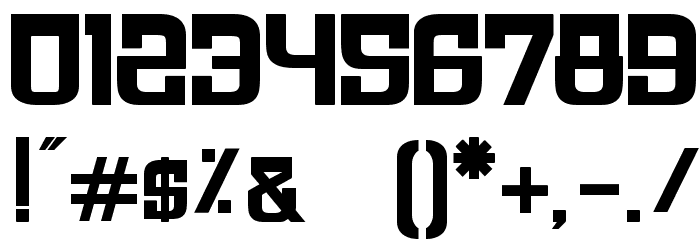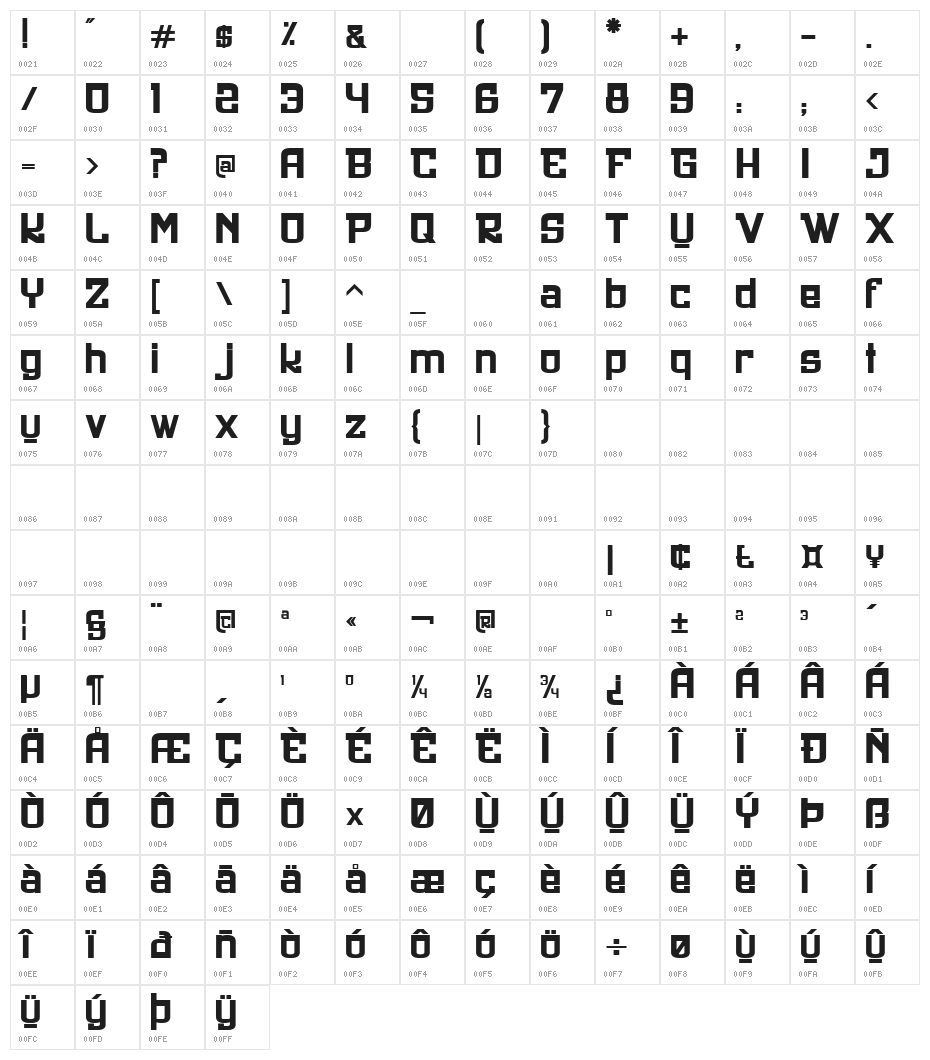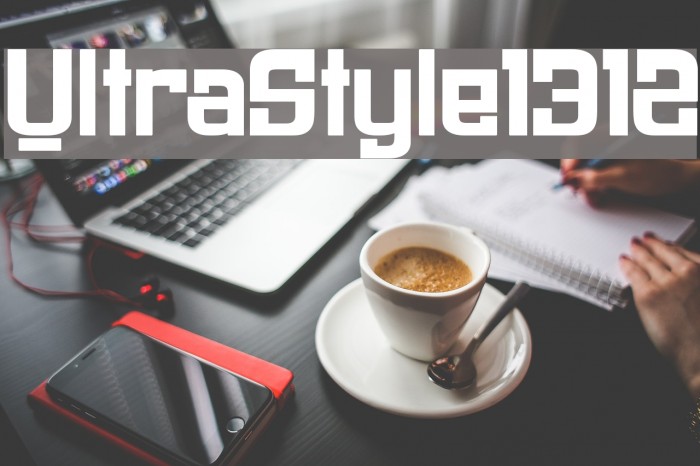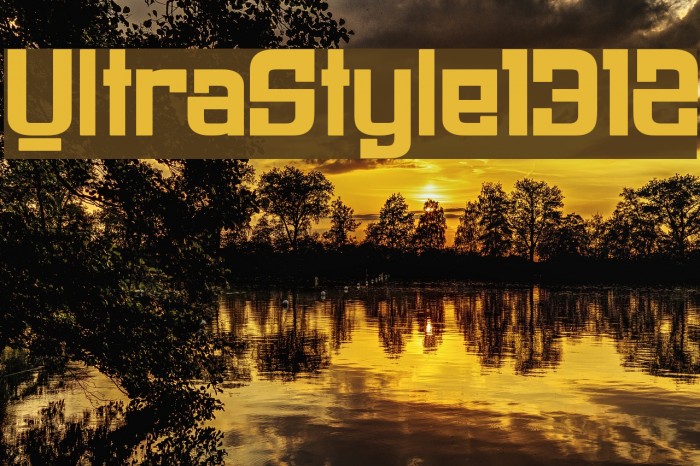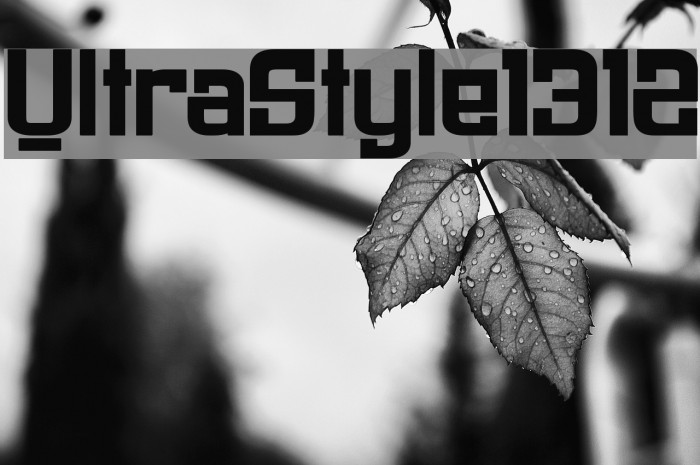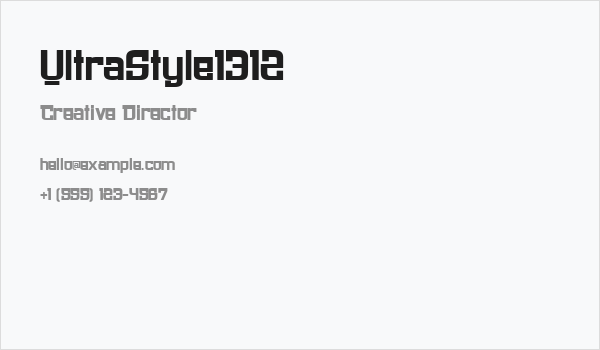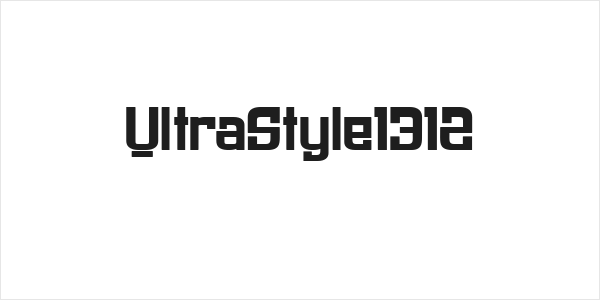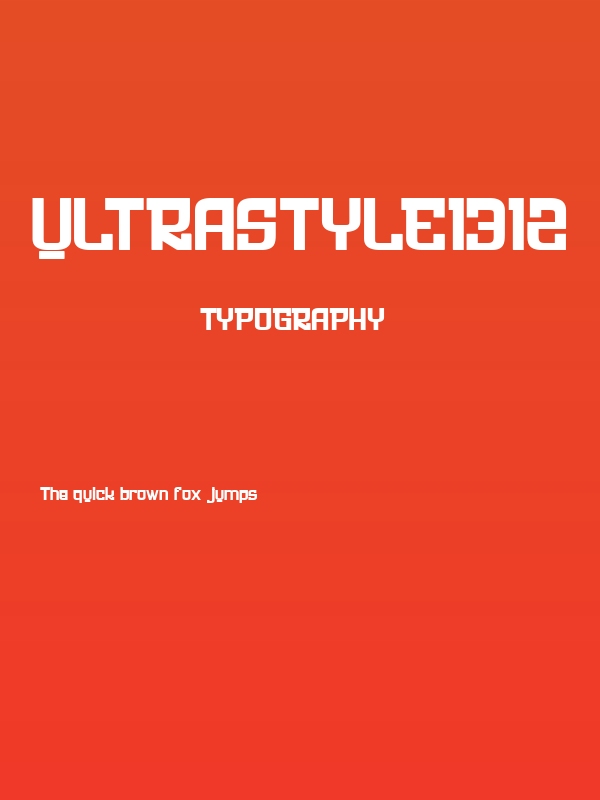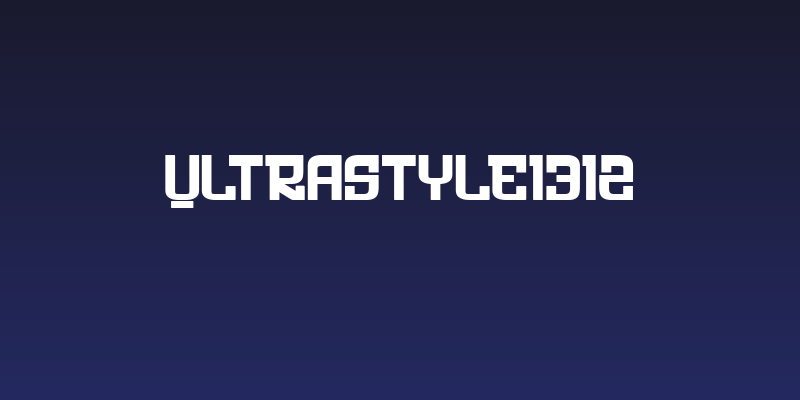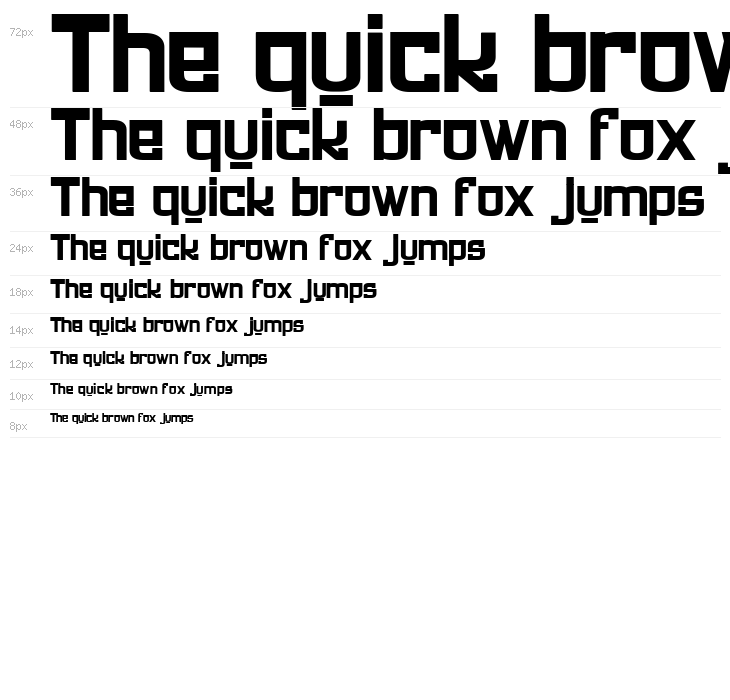
UltraStyle1312 Font
UltraStyle1312 Description
This font features a bold and geometric design with a strong, modern aesthetic. The characters are constructed with thick, uniform strokes, giving them a robust and impactful appearance. The uppercase letters exhibit a squared-off style with sharp angles, while the lowercase letters maintain a similar geometric form, ensuring consistency across the typeface. The numerals are equally bold and follow the same design principles, making them highly legible. Special characters are included, maintaining the overall style, which is ideal for creating a cohesive look in various design projects.
| Proposed Projects | Ideal for branding, posters, headlines, and any project requiring a strong visual impact. |